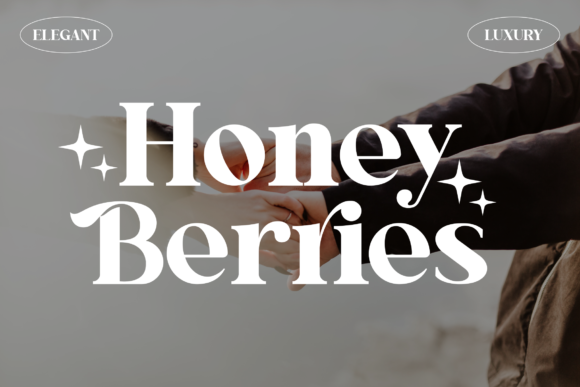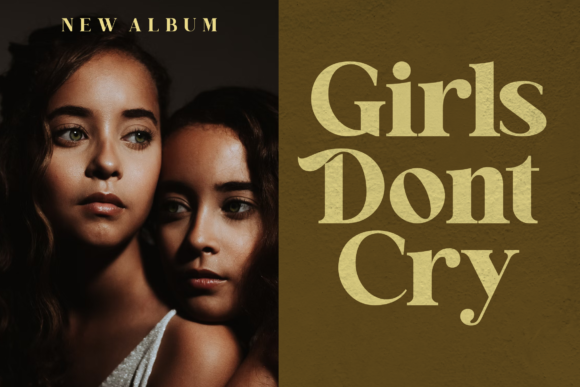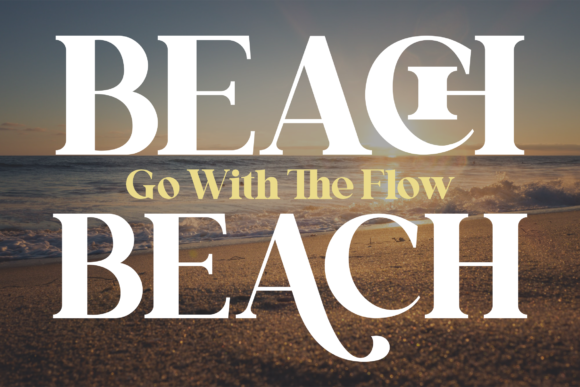
Introduction to Anilez Font
Anilez is a cool and bold serif typeface that has its own unique style & modern look.
This typeface is perfect for an elegant & luxury logo, book, movie title design, fashion brand, magazine, clothes, lettering, quotes, and so much more .
Anilez Font offers exceptional quality and versatility, making it a valuable addition to your design toolkit. Whether you’re creating for personal projects or commercial use, Anilez Font delivers professional results.